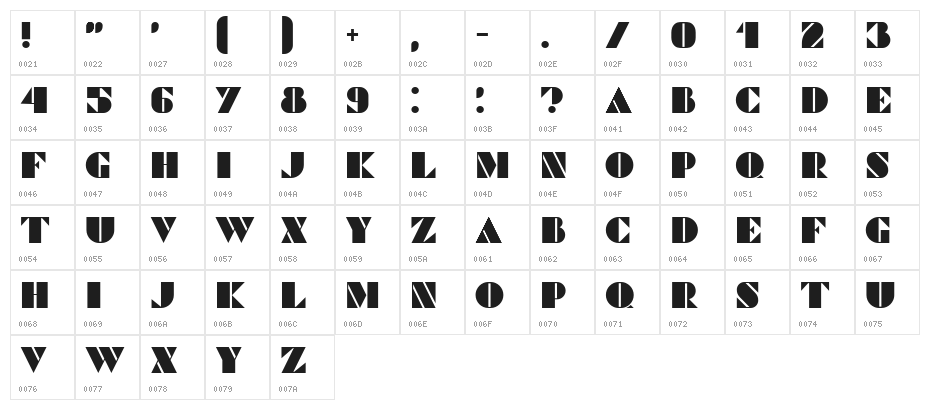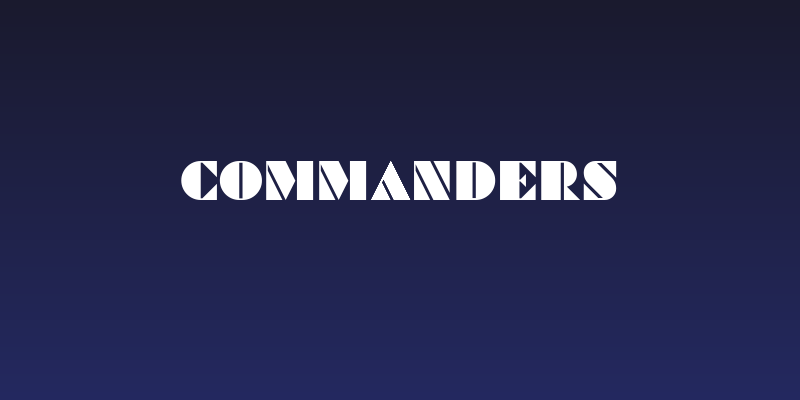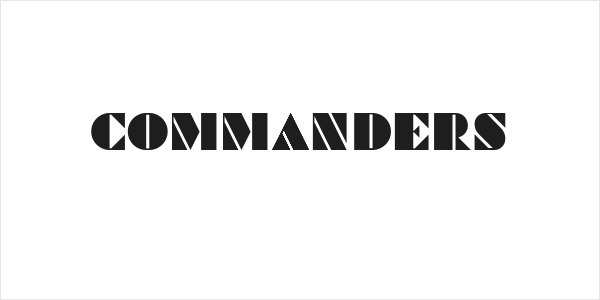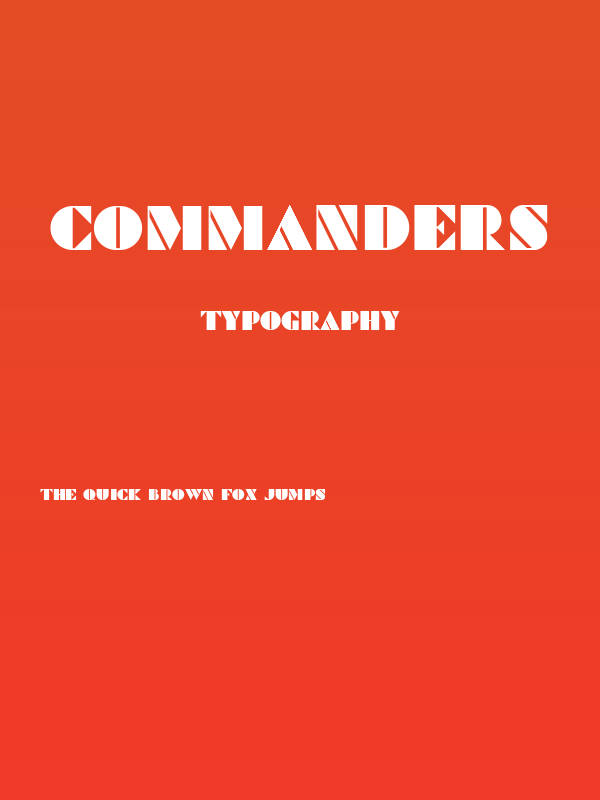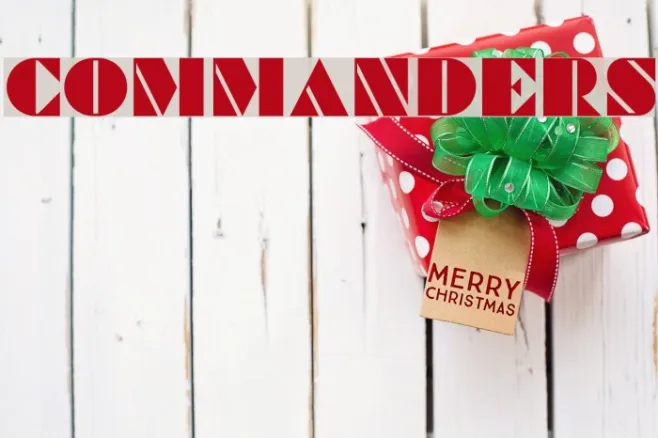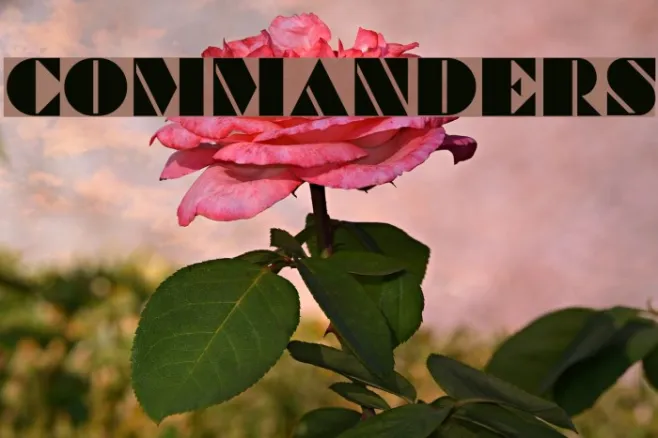
Commanders Font
Commanders Description
This font features a bold and striking design with a strong geometric influence. The characters are constructed with sharp angles and a high degree of contrast, creating a dynamic and impactful appearance. The uppercase letters are particularly prominent, with a blocky and robust style that commands attention. The numbers and special characters maintain the same boldness, ensuring consistency across all text elements. This font is ideal for making a statement, with its eye-catching and modern aesthetic.